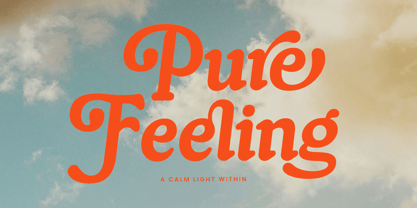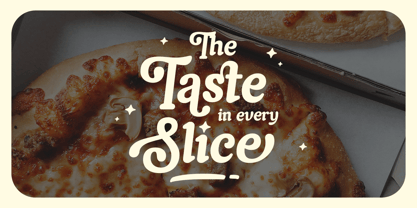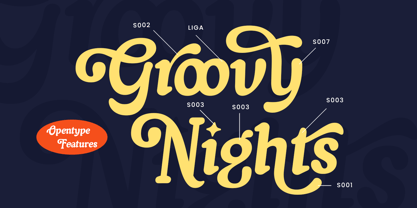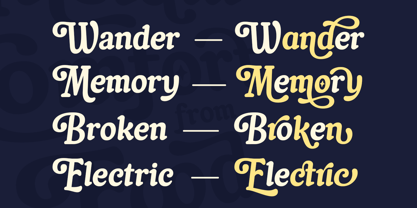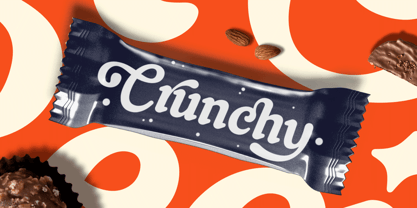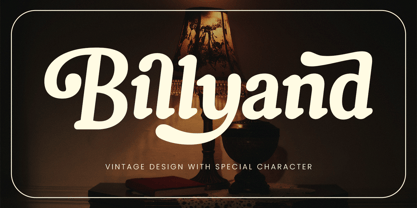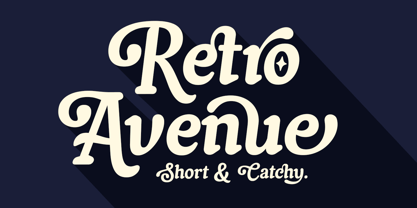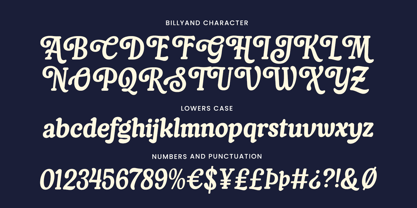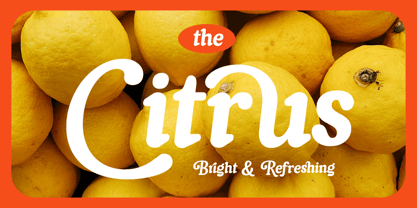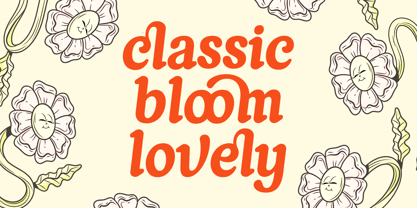
Billyand
The Billyand Font Family was designed by Ahmad Ramzi Fahruddin and published by Arterfak Project. Billyand contains 1 styles. More about this family
Say hello to Billyand, a refined vintage italic typeface that fuses classic italic lettering with bold character and decorative flair, delivering a look that feels both elegant and confident. Designed for versatility, Billyand works beautifully across logos, signage, cards, labels, posters, motion graphics, branding, apparel, merchandise, and beyond. It adapts effortlessly to styles like vintage, sports, retro, adventure, minimalist, food & beverage, holiday, urban, and more—basically, it plays well with everyone. Packed with a rich set of alternates and swash characters, Billyand gives you the creative freedom to craft distinctive and expressive typographic compositions. What you’ll get : Uppercase Lowercase Numbers & symbols Punctuations Stylistic alternates Stylistic set 01-05 Multilingual support Enjoy!